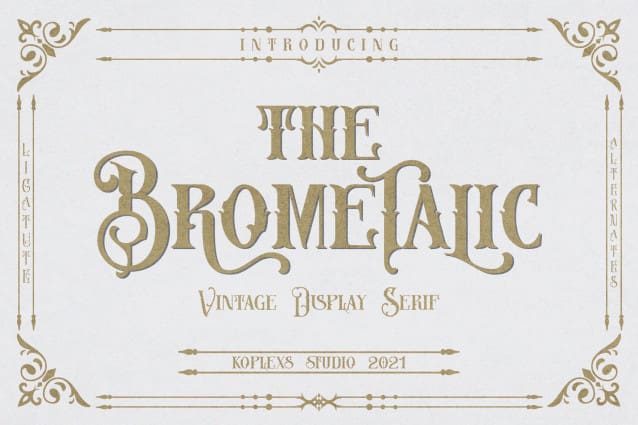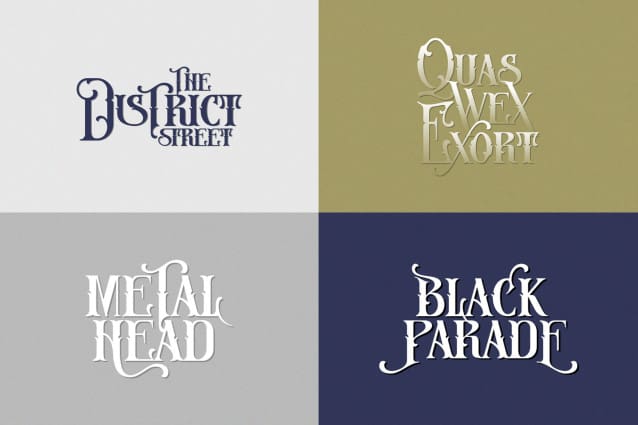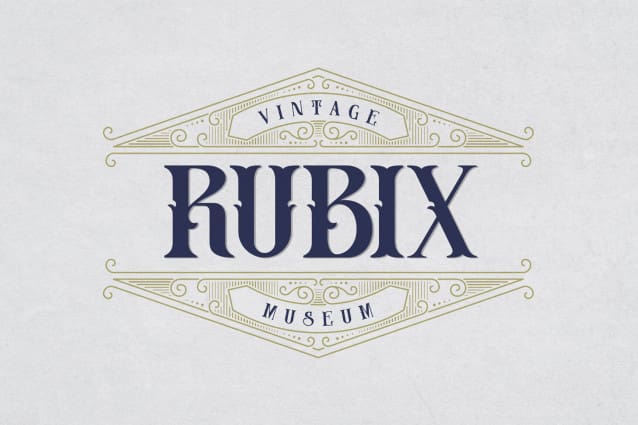
Brometalic Vintage Font
Brometalic Vintage Font was born from an idea inspired by the classic Victorian vintage style combined with the western style which makes the Brometalic font look dashing, cool and unique. This font is perfect for a bold, vintage Victorian concept design.
Brometalic Vintage Display Typeface very suitable for branding projects, logos, product packaging, product designs, labels, packaging, pomade designs, barbershops and so on with vintage concepts and other classic Victorian concepts.